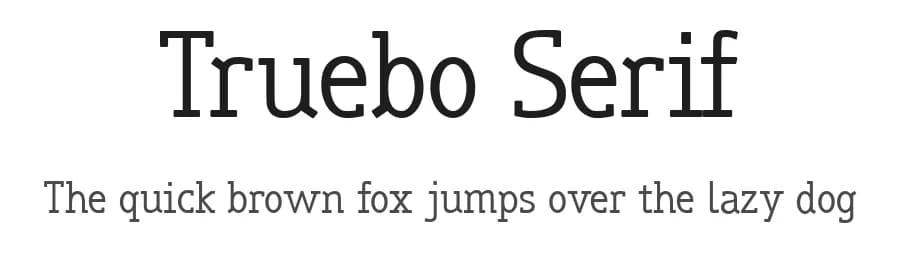
About Truebo Serif Font
Truebo Serif is a serif font designed by Nils Merkel. It includes 104 glyphs, a regular weight, TTF (TrueType) format, and 95 languages. Truebo Serif is free to download; check the license details on this page before commercial use. Serif fonts like Truebo Serif work best for body text, editorial layouts, book covers, and classic branding.
Truebo Serif Font is a versatile serif font that works for both headings and body text. Pair it with a contrasting sans-serif or slab serif font to add visual interest and a clear distinction between titles and body copy.
Truebo Serif Font